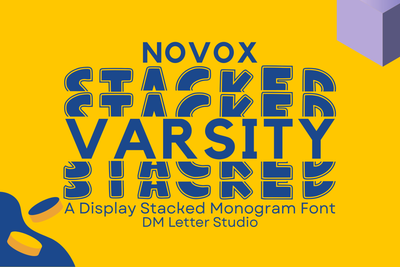
Novox Varsity Stacked Monogram
Novox Varsity Stacked Monogram – Bold Athletic Layered Font
Novox Varsity Stacked Monogram is a powerful and dynamic font that captures the energy of classic collegiate lettering in a stacked monogram style. With strong lines and layered depth, this typeface is perfect for school spirit designs, team logos, sports merchandise, varsity apparel, and personalized gifts that need a confident, bold presence.
Stacked Monogram Design: Carefully arranged lettering in a vertical layout, ideal for initials and compact designs.
Classic Varsity Look: Inspired by traditional sports and college fonts with a modern edge.
Perfect for Athletic Themes: Great for banners, jerseys, locker decals, custom gear, and school branding.
Layered Depth: Bold outlines and stacked forms give a strong visual impact.
Full Character Set: Includes uppercase letters, punctuation, and multilingual support.